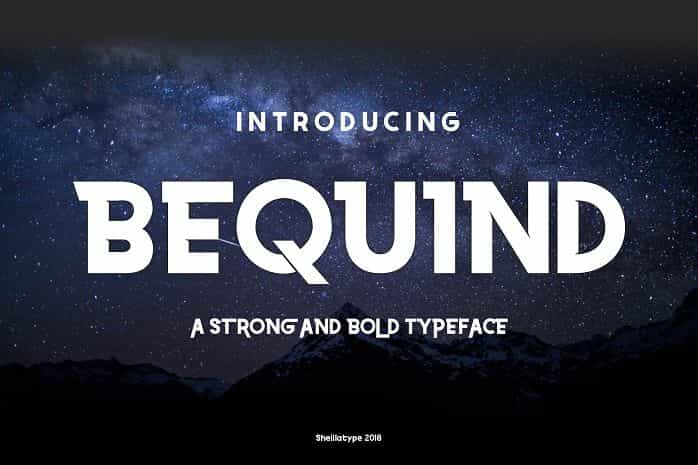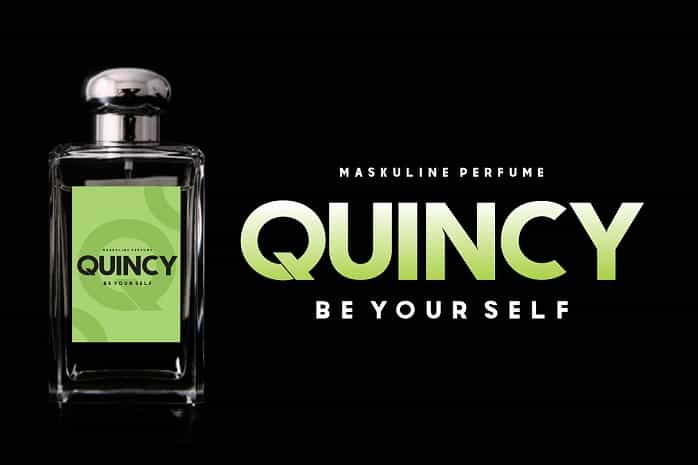
Discover Bequind Dysplay Font, part of the Sans Serif Display Stencil Army collection—a versatile and unique font perfect for adding a personal touch to your projects. Download it for free and enjoy crafting designs with style, from invitations to social media posts. This font is available exclusively for personal use, giving you the freedom to create without limits. Unlock your creativity with Bequind Dysplay Font today!
BEQUIND is a font of the Sans-serif or Classical Sans genre, which makes a fine choice for branding logo fonts, titles on brush pen calligraphies and in case you need to slightly upper legibility there are still alternatives available on font Manor Script — for instance (sans-or curly cursive). This font has Opentype feature with, many alternative fonts, ligature, punctuation, hope you would enjoy it for your design needs and business.